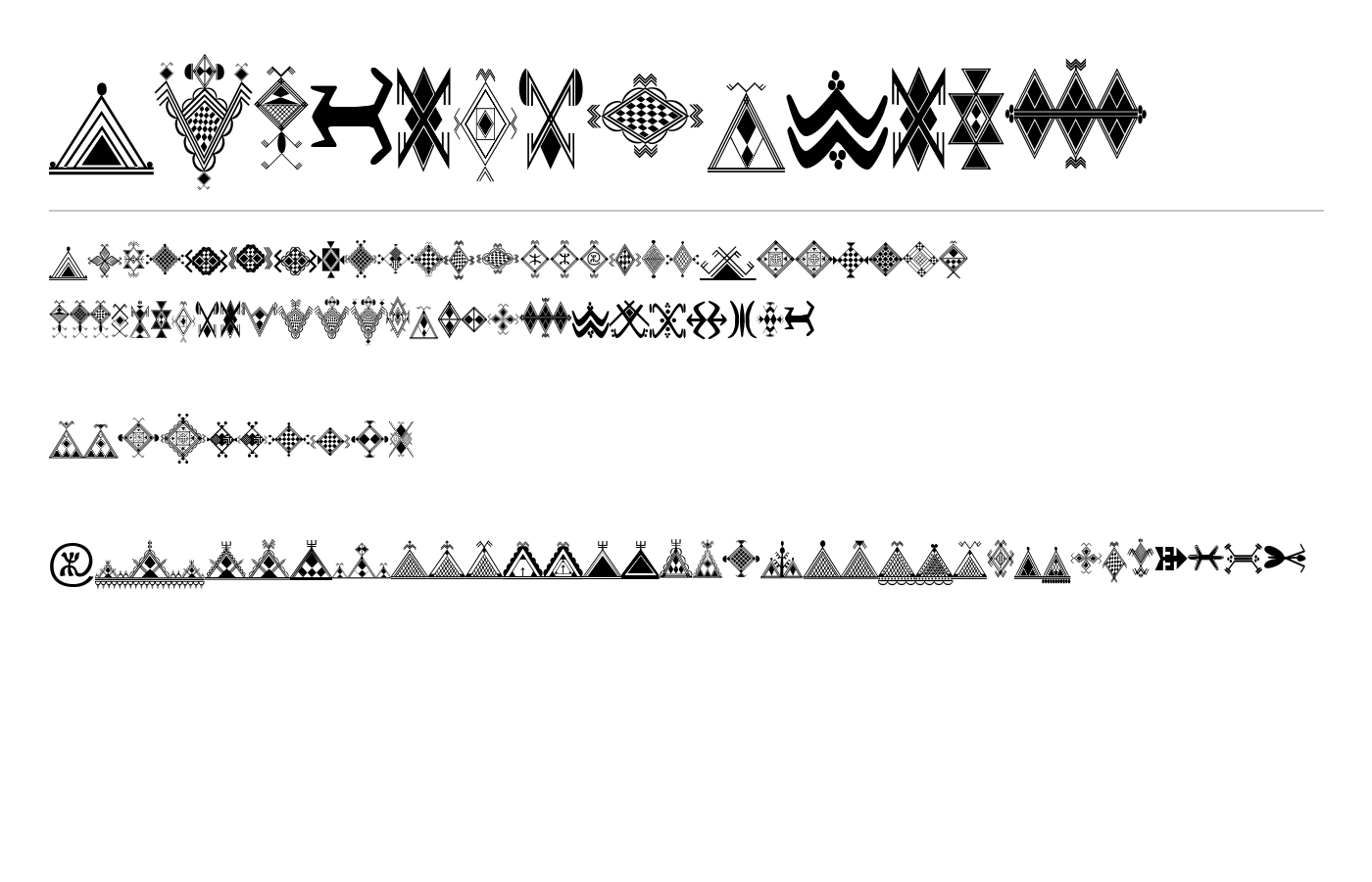
Amazigh Motifs Font is a decorative typeface inspired by traditional Amazigh tribal symbols, featuring intricate geometric shapes and bold, symmetrical designs. This font works best for cultural, ethnic, or artistic projects where a distinctive and ornamental style can evoke heritage and authenticity. Ideal for logos, packaging, and unique branding, it adds a striking visual identity rooted in Amazigh craftsmanship.
Amazigh Motifs Font
About Amazigh Motifs Font